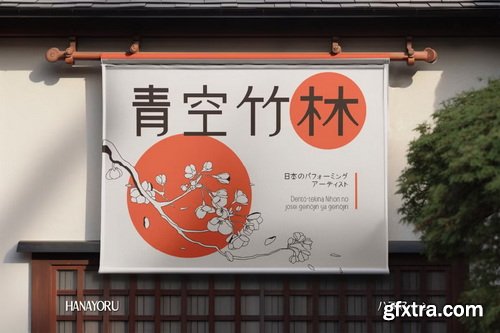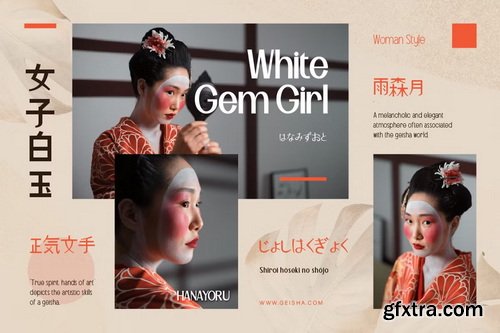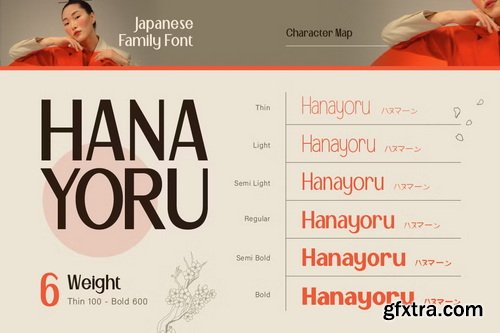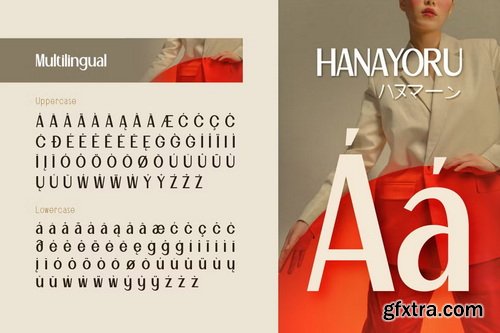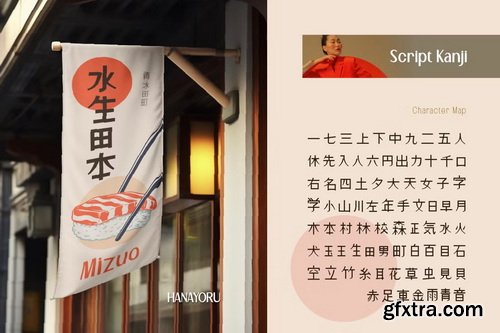
Introducing Hanayoru, modern elegant font with Japanese character. This font comes with Japanese characters (Hiragana, Katakana, and Kanji) and offers 6 weight variations, from Thin to Black. Thanks to its clean and well-structured design, this font stays highly readable across all styles. With a perfect blend of Latin and Japanese characters, Hanayoru is super versatile for any design project that requires both languages. It strikes the perfect balance between traditional aesthetics and modern appeal. Perfect for branding, logos, editorials, packaging, or even Japanese-themed posters.